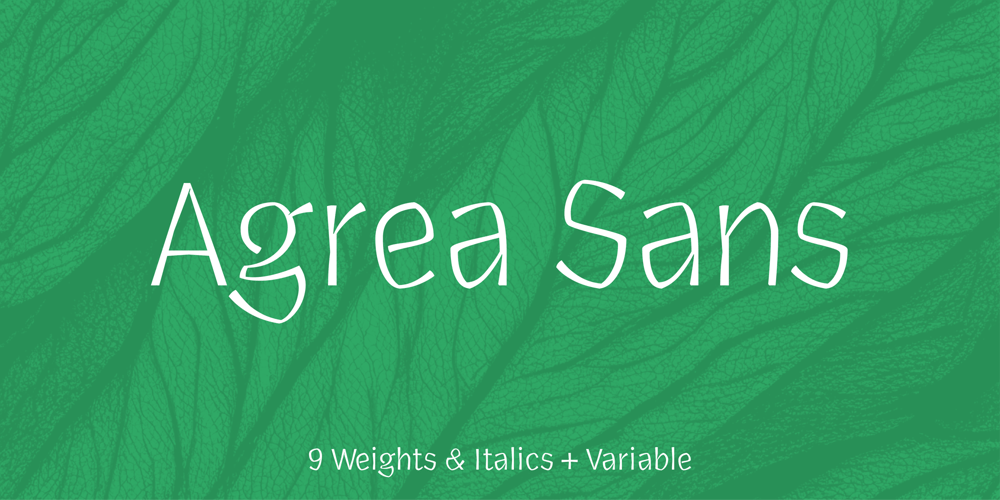
Agrea Sans
Agrea Sans font
Agrea Sans Font Family was designed by Koray Özbey and published by Koray Özbey. Agrea Sans contains 20 styles and family package options. Agrea is a sans serif typeface with 9 weights and italics and variable versions. It’s a typeface that combines the elegance of calligraphy with a modern twist.One of Agrea’s defining features is its fluid strokes and deep ink traps, which add a touch of sophistication and uniqueness to your projects. Whether you’re designing for natural, organic, or ecological content, Agrea is a nice choice.